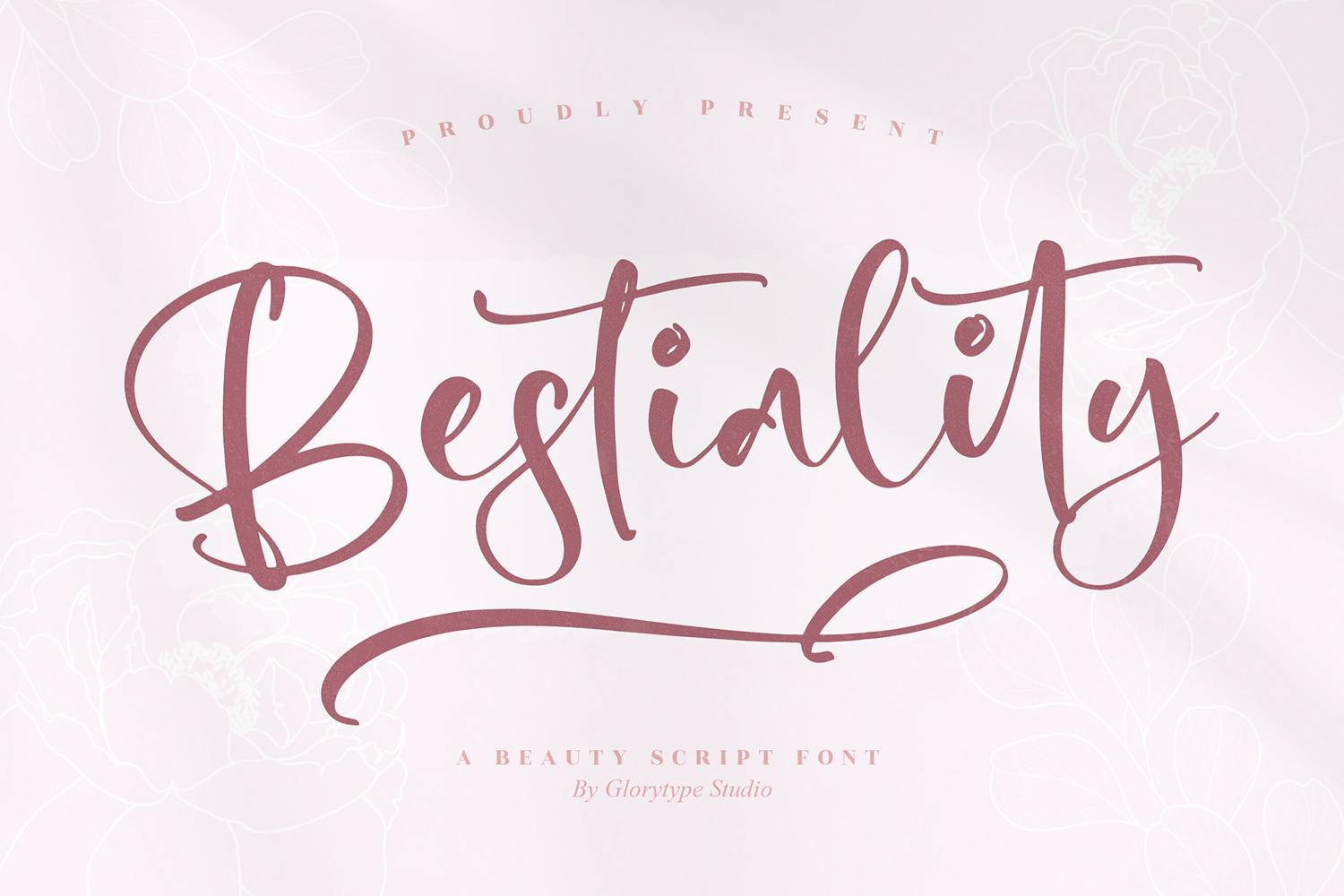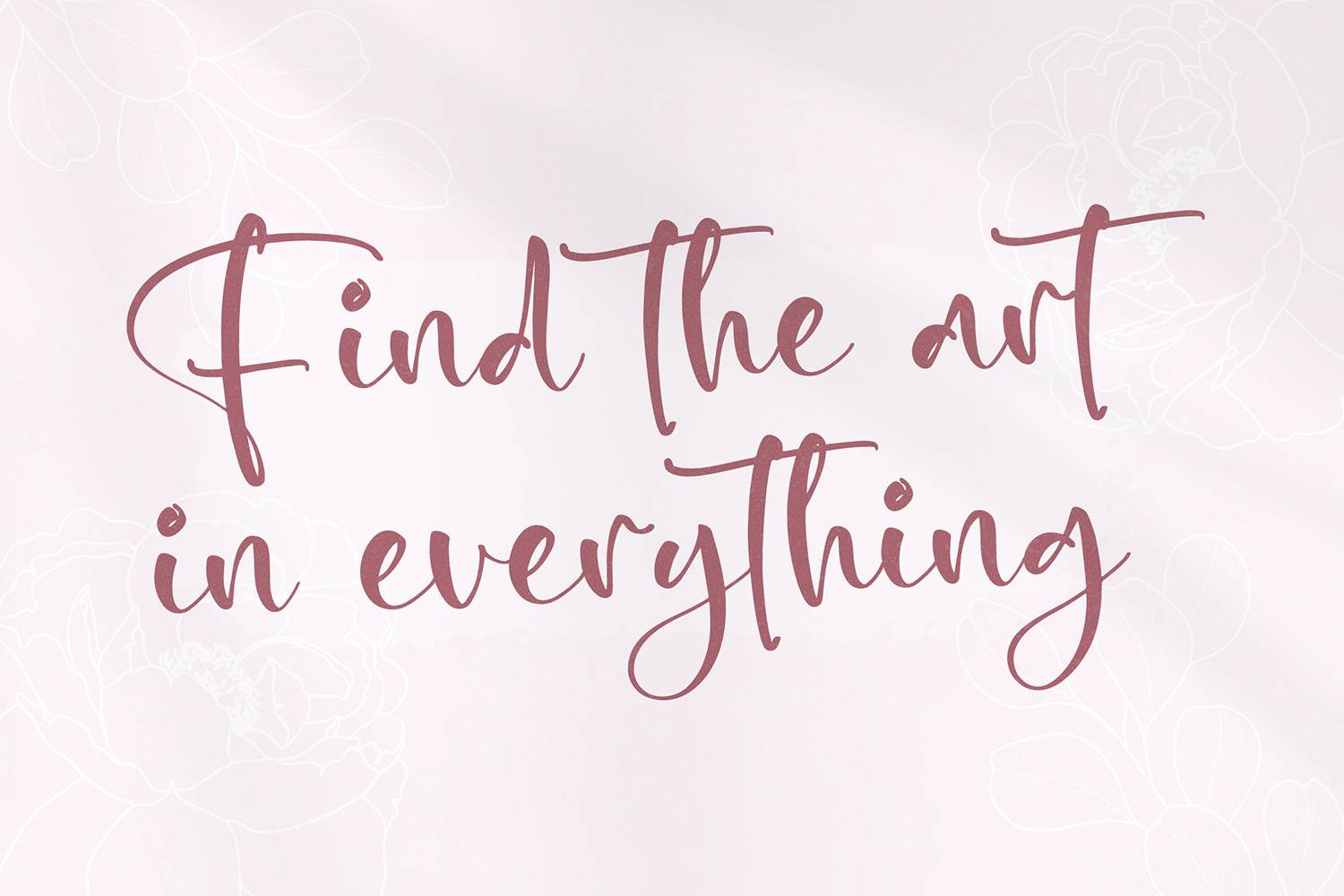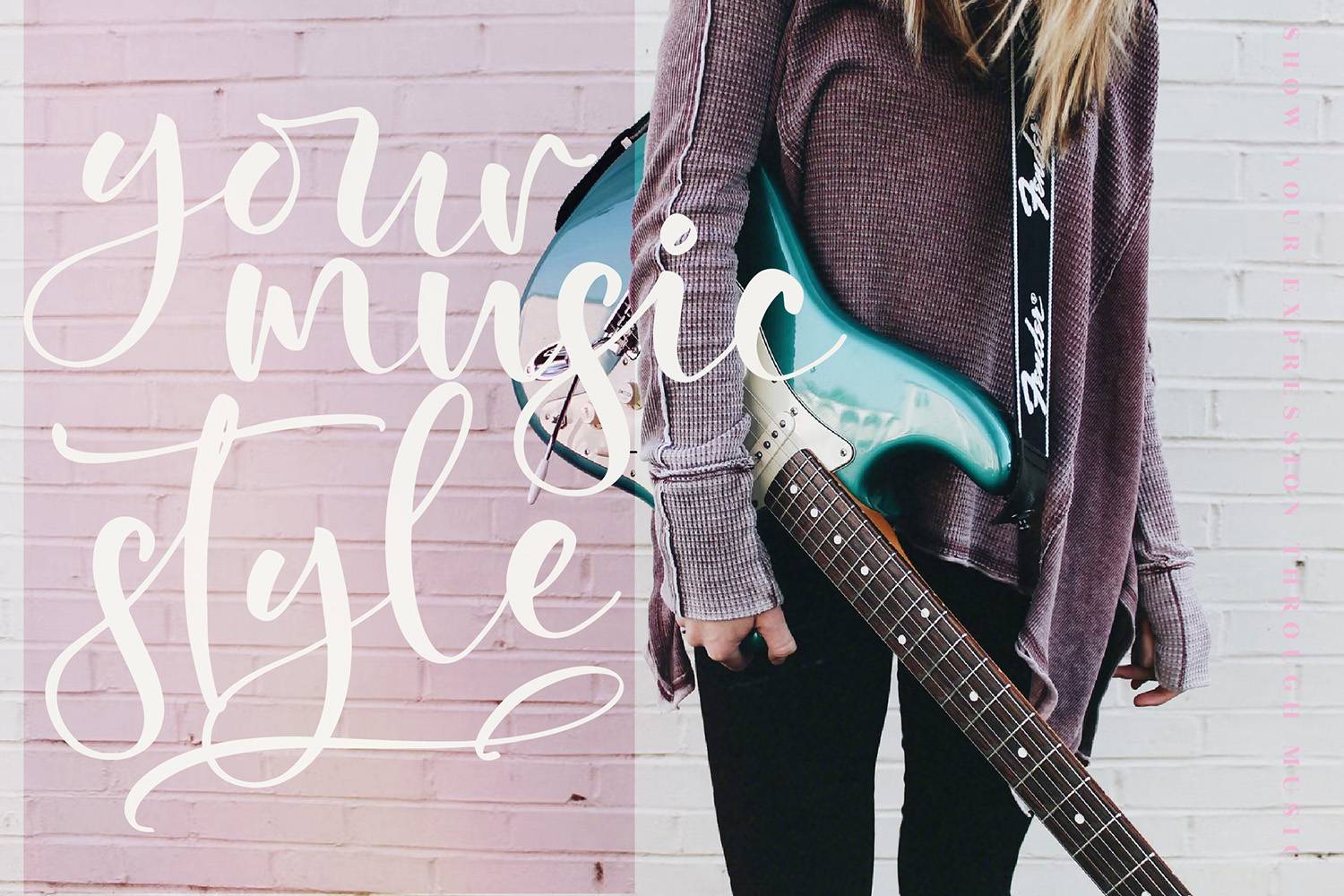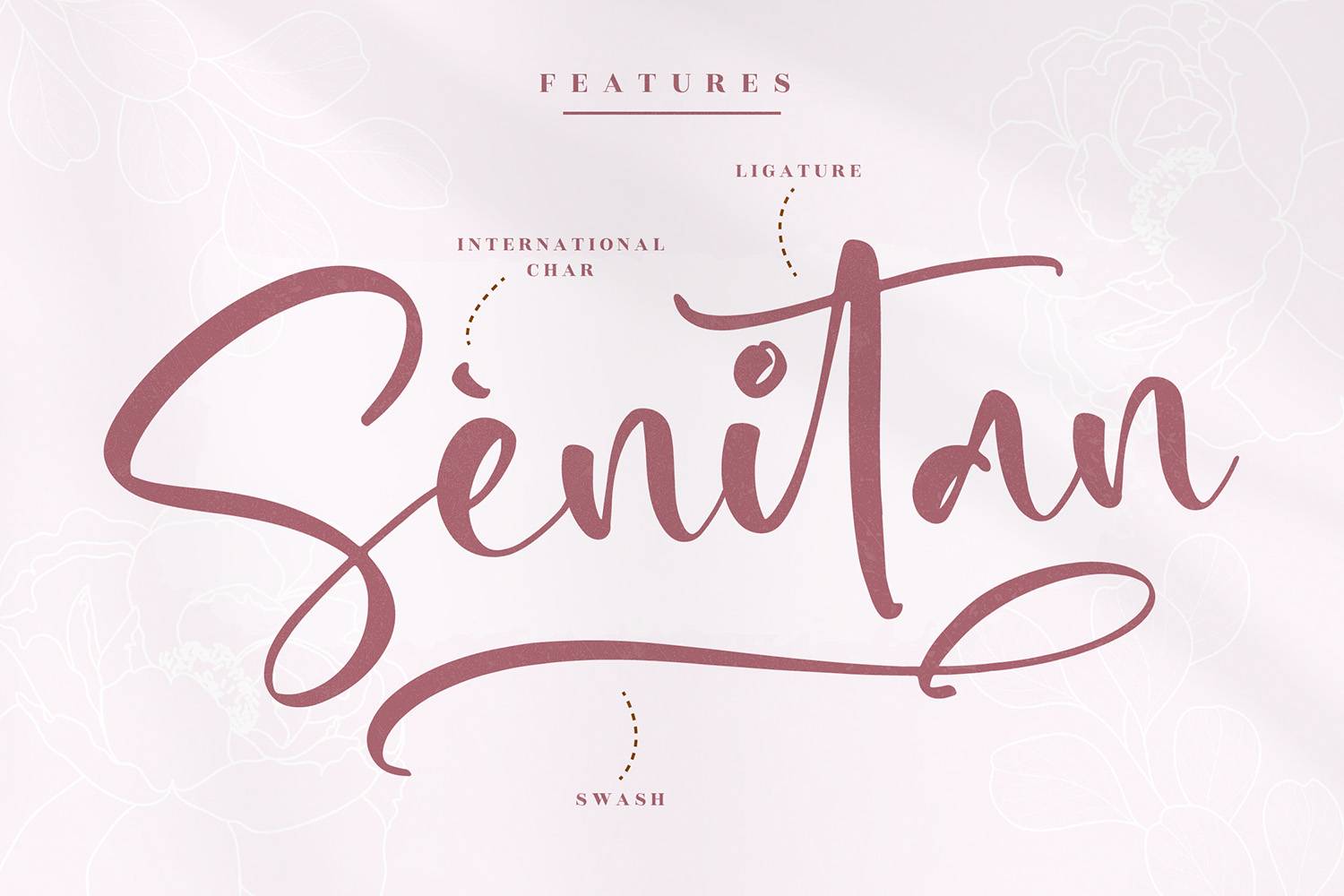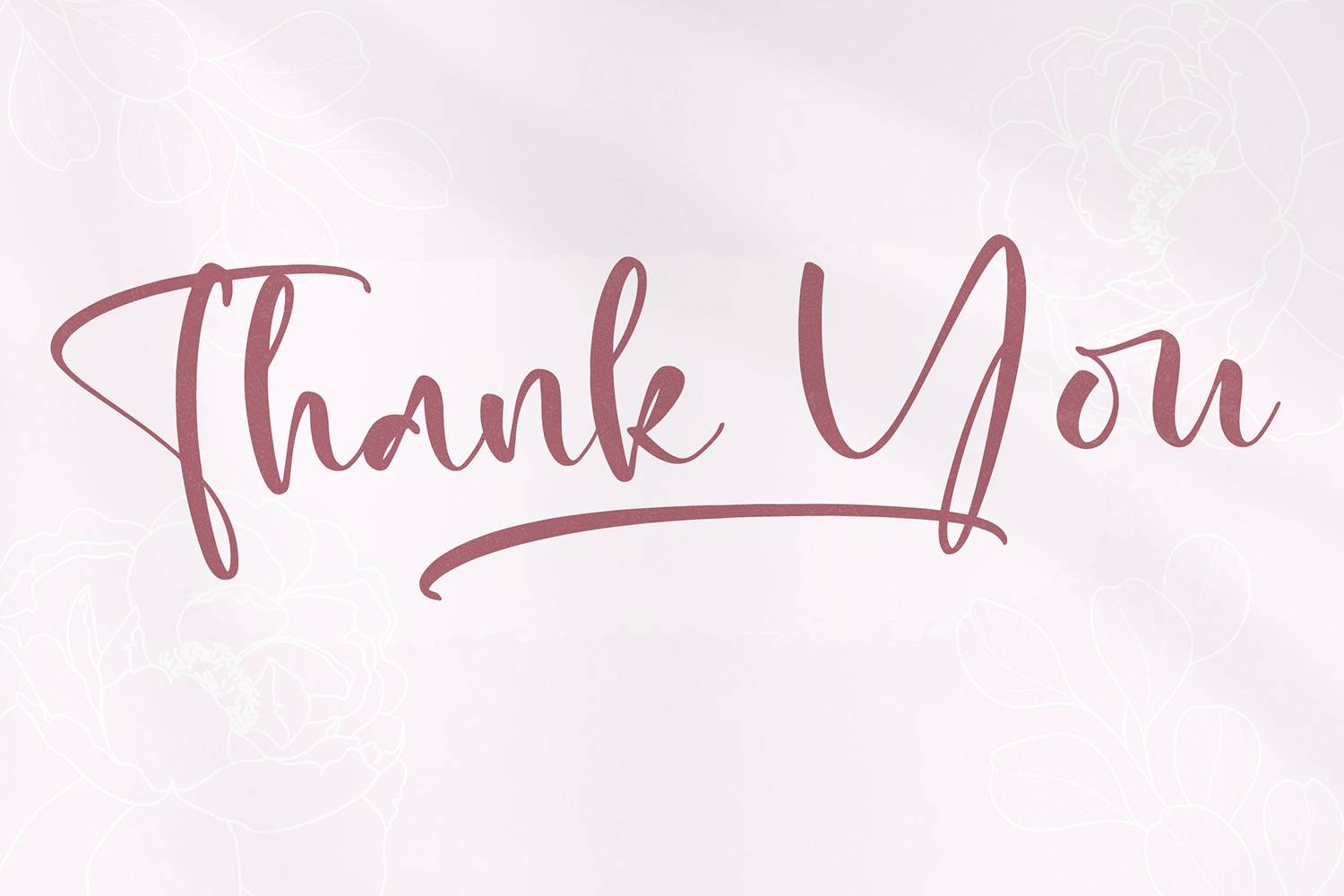
Bestiality is a delicate, modern script font that combines a strong yet elegant handwritten feel with fluid, narrow letterforms. It features varied stroke widths with smooth curves and flourishes, creating a stylish and playful personality well suited for invitations, branding, and creative projects that seek a personal, artistic touch. This font shines in headline and decorative uses where its sophisticated, casual charm can truly stand out.
Bestiality Font
About Bestiality Font